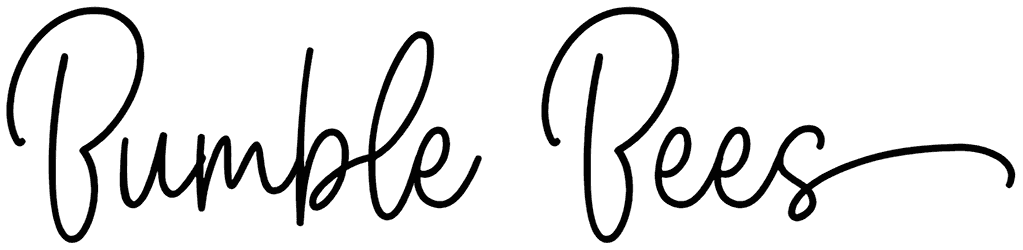
Bumble Bees Font
Bumble Bees is a handwritten font that has a casual and natural feel to it. Because of its careless look, it is ideal for projects that require a touch of informality and playfulness in their presentation.
Any project, from invitations to social media graphics, may benefit from its distinctive design aesthetic by conveying a sense of friendliness and approachability. It is available for no cost to download from RB’s extensive font collection.